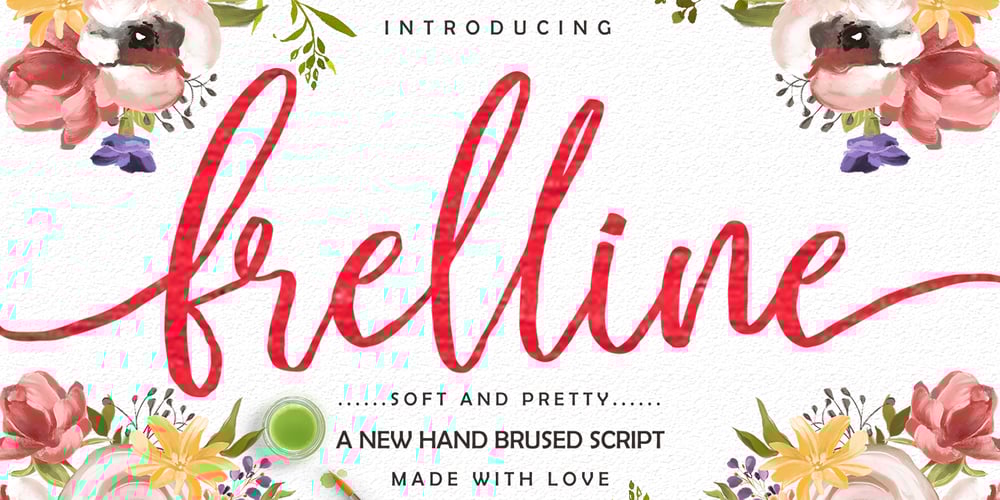
Frelline Script
Frelline Script font
Frelline Script Font Family was designed by Muhajir Akarim and published by Soft Creative. Frelline Script contains 2 styles and family package options. Frelline looks beautiful on wedding invitations, thank you cards, quotes, greeting cards, logos, business cards and more. Perfect for use in ink or watercolors. Including beginning and end letters, alternative support and many languages.I made this font very carefully so that each letter looked very unique and had various beautiful alternatives.